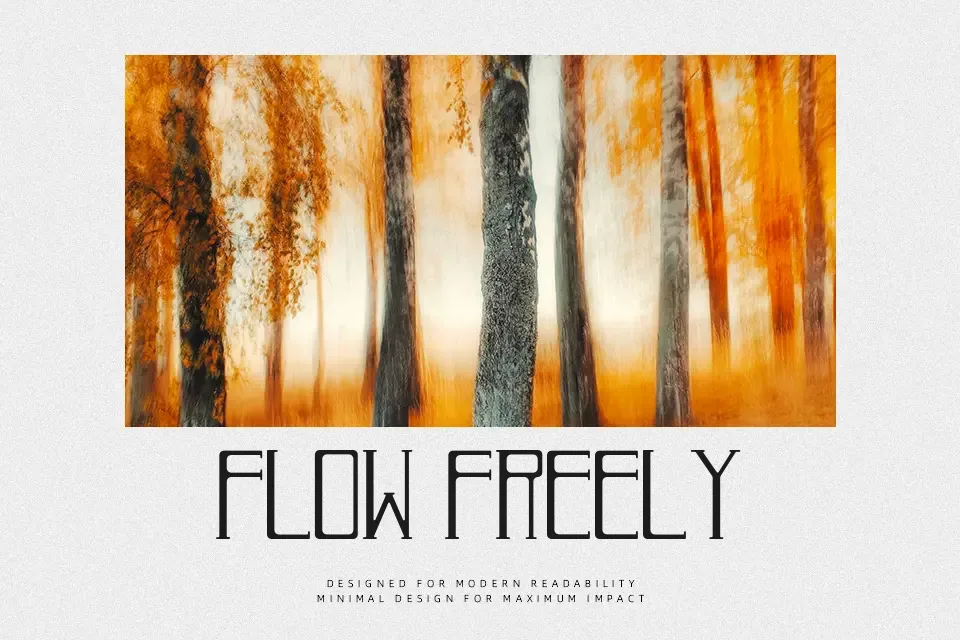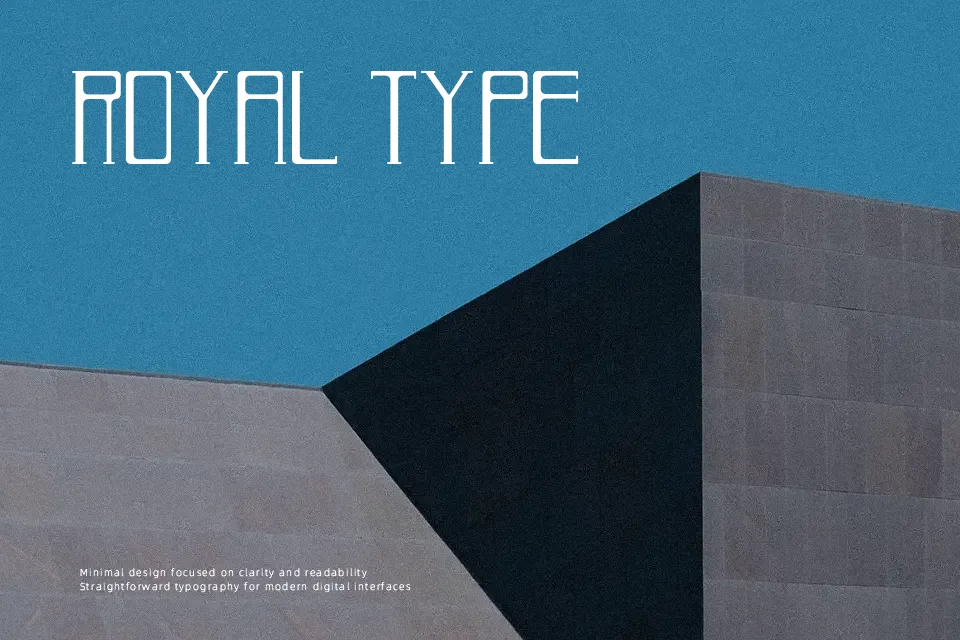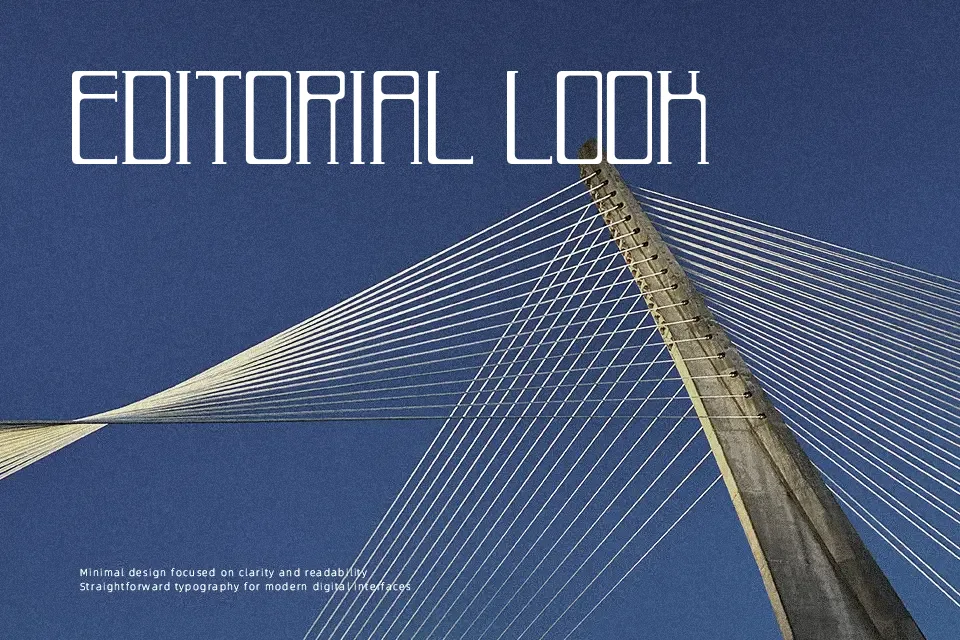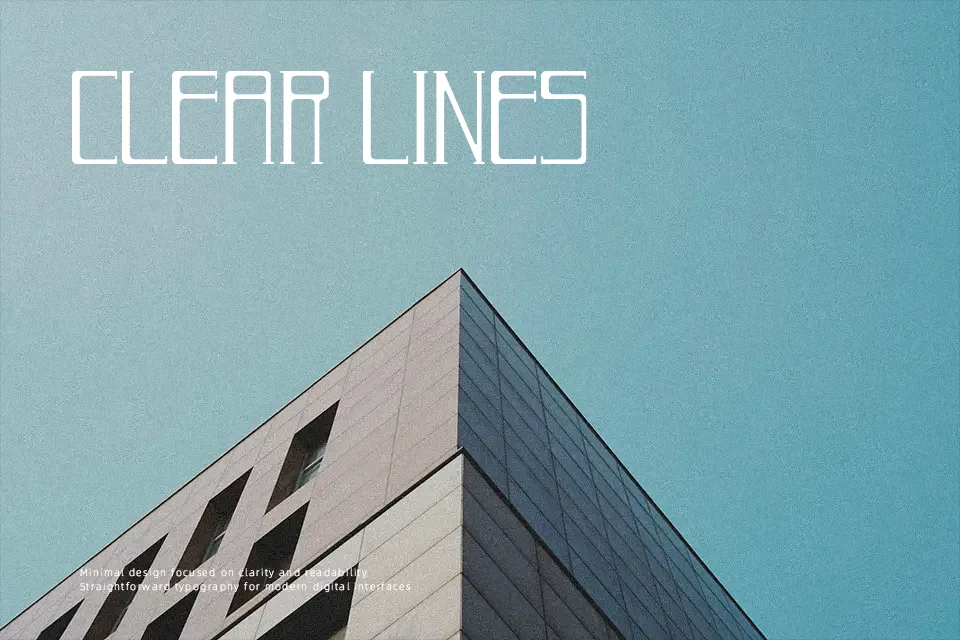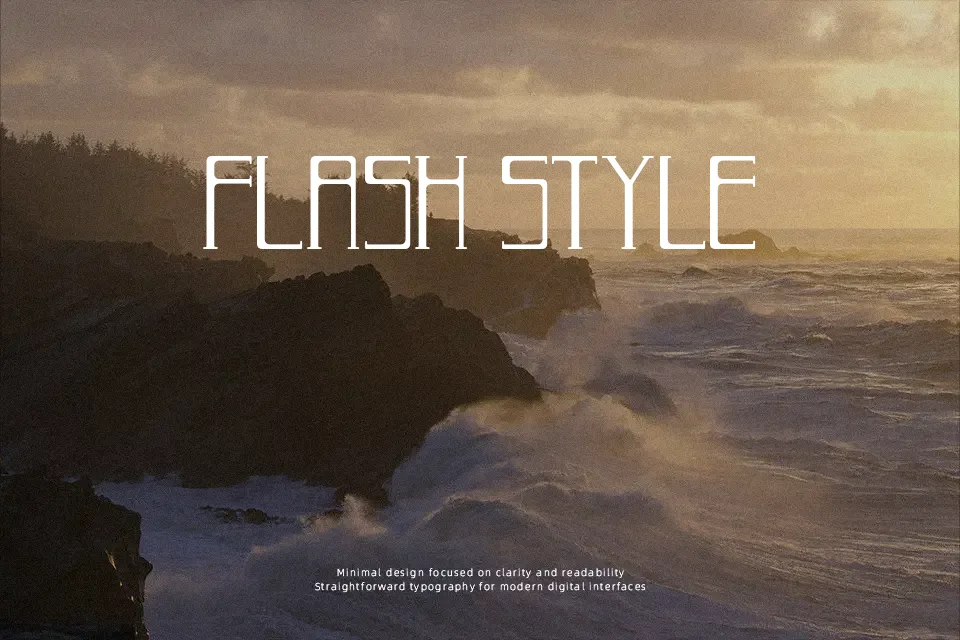
Roman Deco Font
Roman Deco Font establishes a commanding presence through its rigid geometric letterforms and pronounced architectural structure. The strokes emphasize strong verticality and structural balance, characteristic of classic early twentieth-century design aesthetics, while maintaining a clean, unadorned finish. With expansive internal counters and highly considered spacing, the design creates a measured visual rhythm that commands attention in large display formats. The sharp terminals and consistent stroke weight improve visibility and maintain structural integrity at massive scales. However, these distinct decorative proportions and rigid character widths reduce reading comfort when applied to lengthy paragraph text or highly condensed editorial layouts.
vintage product packaging, boutique store branding, movie poster headlines, architectural magazine covers
long paragraph text, dense editorial layouts, spreadsheet data, small interface labels
Perfect for branding, headline, and packaging, with a classic and decorative style.